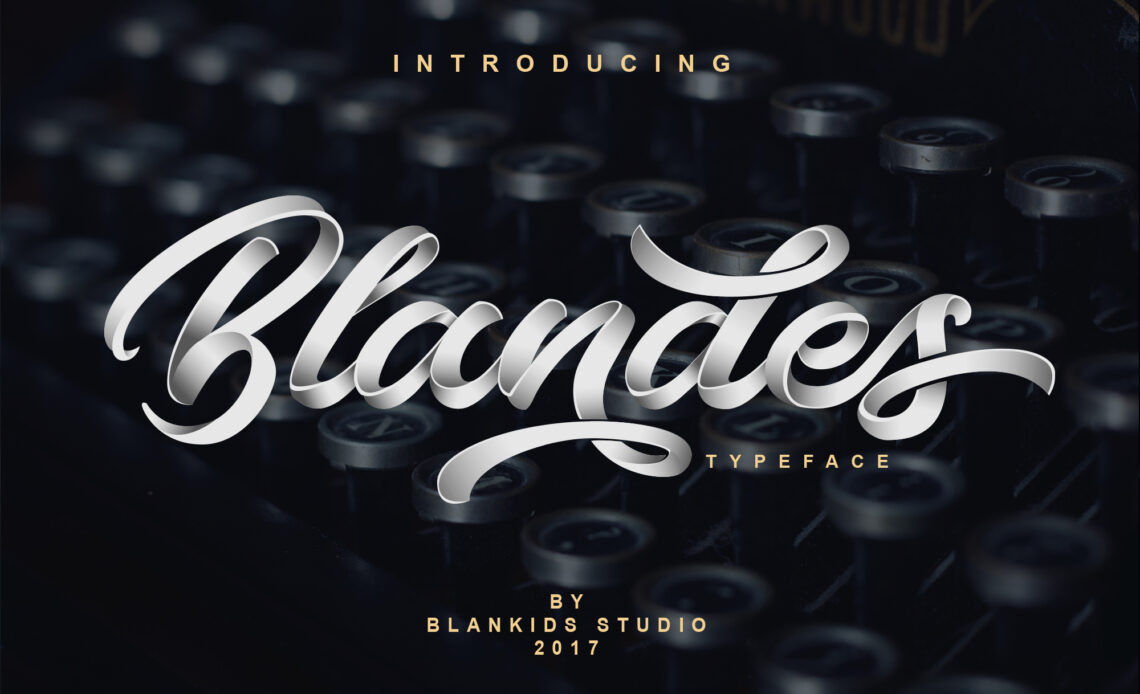
Unleash the Enchanting Allure of Blandes Font, Where Elegance Meets Boldness
Journey into the realm of typographic artistry with Blandes Font, a captivating script font born from the fusion of imagination and the beauty of handwritten letters. Inspired by the intricate anatomy of hand-lettering, Blandes emerges as a visual masterpiece that exudes personality and charm.
With its strikingly high impact and heavy script, Blandes Font commands attention, leaving an indelible mark on your designs and projects. Its origins lie in the designer's own handwriting, a personal touch that infuses each character with a distinct charm. Alternate character styles further amplify the uniqueness of this design, providing endless possibilities for creative expression.
Embrace the Elegance, Radiate Confidence
Blandes Font possesses an innate elegance that effortlessly elevates your projects, adding a touch of sophistication to any design. Whether you're crafting logos, branding materials, or captivating social media graphics, Blandes Font empowers you to convey a message of confidence and professionalism. Its bold presence ensures that your words resonate, leaving a lasting impression on your audience.
Express Your Creativity, Unleash Your Imagination
Blandes Font is a creative playground where your imagination can run wild. With its extensive character set, including uppercase, lowercase, numerals, and a diverse range of punctuation marks, Blandes Font provides the tools you need to bring your creative visions to life. Explore the endless possibilities of this versatile script, crafting designs that reflect your unique style and artistic flair.
Discover the Beauty of Imperfection, Embrace the Unique
Blandes Font celebrates the beauty of imperfection, capturing the essence of hand-lettering with its charming irregularities and variations. Each character possesses a distinct personality, adding depth and character to your designs. Embrace the uniqueness of Blandes Font, allowing it to bring a touch of authenticity and warmth to your projects.
Step into a World of Endless Possibilities
Blandes Font opens up a world of endless possibilities for designers of all levels. Whether you're a seasoned professional or just starting your creative journey, this captivating script font will elevate your designs to new heights. Embrace the power of Blandes Font and watch your projects transform into visually stunning masterpieces.